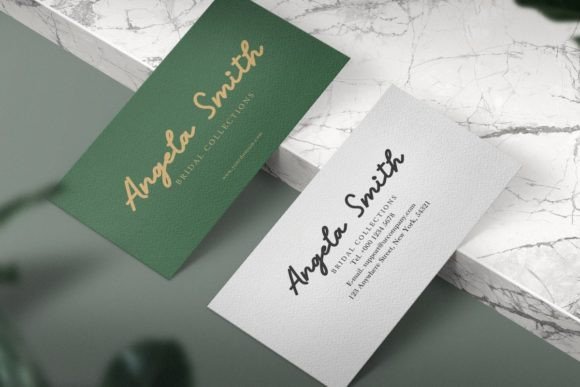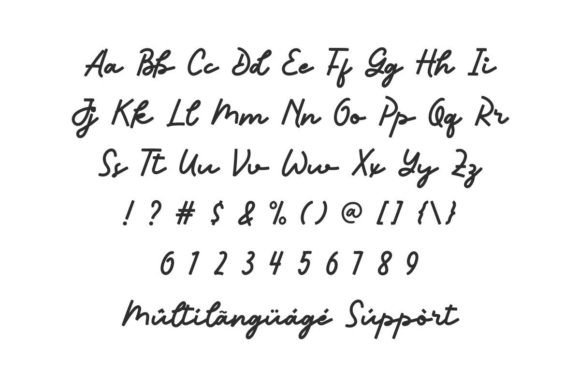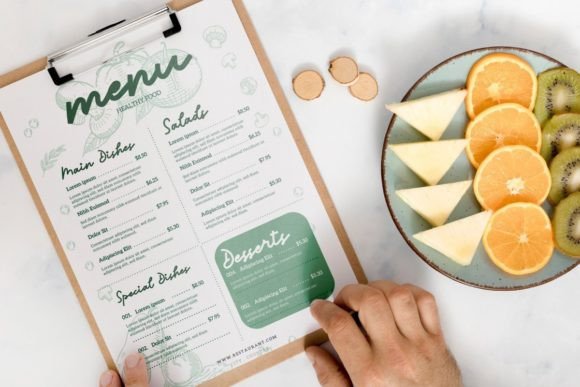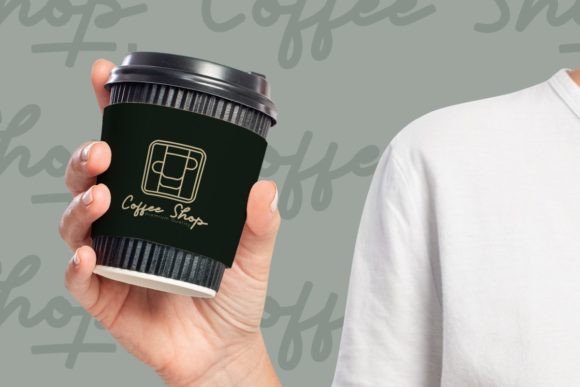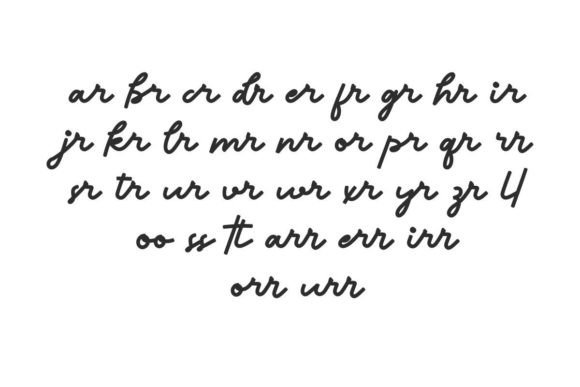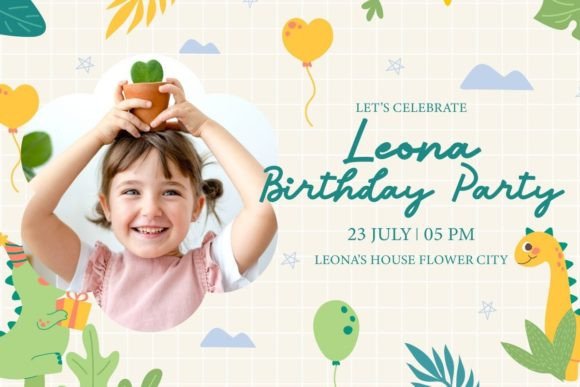
Introduction to Party Attack Font
Do you ever find yourself staring at a blank canvas, unsure of where to start your next creative project? The blank page can be intimidating, but the right design resource can be just the spark you need to get your ideas flowing. For many designers, finding the perfect font can be the key to unlocking a design’s full potential.
That’s where Party Attack Font comes in – a casual, simple, and cheerful handwritten font that’s sure to add a touch of whimsy to any design. With its incredibly distinct and timeless style, it’s no wonder designers are falling in love with this versatile font. Whether you’re working on a design project that requires a transparent background or a high-quality logo, Party Attack Font is the perfect choice.
Key Features of Party Attack Font
- Unique, bold, and playful design perfect for creative projects, such as party invitations, posters, and social media graphics.
- Perfect for adding a fun and energetic touch to your designs, making it a great choice for creative projects and events.
Honest Review: Party Attack Font
I recently stumbled upon the Party Attack Font, and I must say, it’s been a game-changer for my creative projects. As a designer, I’m always on the lookout for unique and high-quality design resources, and this font definitely delivers. The first thing I noticed was its bold and playful style, which is perfect for adding a touch of excitement to any design.
- ✨ The font is incredibly versatile and can be used for a wide range of creative projects, from party invitations to social media graphics.
- ✨ The high-quality design ensures that it looks great on any background, including transparent backgrounds, which is a major plus for designers.
One thing to keep in mind is that the font may not be suitable for all types of projects. For example, it may not be the best choice for formal or professional designs. Additionally, some users may find the font a bit too bold or overwhelming.
- ⚠️ The font may be too bold or overwhelming for some designs.
- ⚠️ It may not be suitable for formal or professional projects.
Overall, I’m thoroughly impressed with the Party Attack Font. Its unique style, high-quality design, and free download make it an excellent addition to any designer’s toolkit. While it may have some limitations, I believe it’s a valuable resource that can help take your creative projects to the next level.
How to Use Party Attack Font
The Party Attack Font is a unique design resource perfect for creative projects that require a bold and eye-catching style. This high-quality font can be downloaded for free and used in a variety of applications.
Tips for Getting the Most Out of Party Attack Font
Here are a few tips for getting the most out of the Party Attack Font: use it sparingly to add emphasis, pair it with other fonts to create a unique look, and experiment with different font sizes and styles to achieve the desired effect.
Common Use Cases for Party Attack Font
The Party Attack Font is perfect for a variety of creative projects, including: party invitations, social media graphics, and promotional materials. It’s also a great choice for anyone looking to add a bold and eye-catching touch to their design.